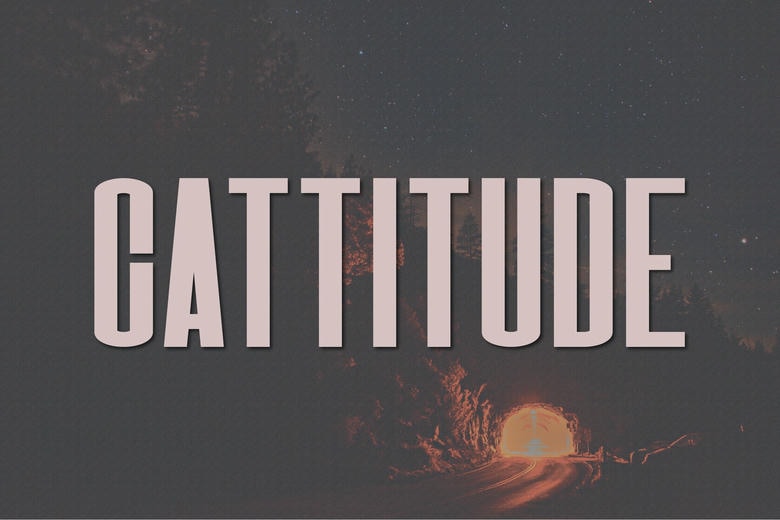
Cattitude Font
Cattitude is a luxury sans serif typeface. A simple sans serif typeface that contains upper characters, numbers 0-9, range of punctuation and symbols. A very versatile font you can use for anything from logo, to wedding use, to invitations, moblio, print, magazine, advertisenent and etc.
Cattitude Sans Serif Font